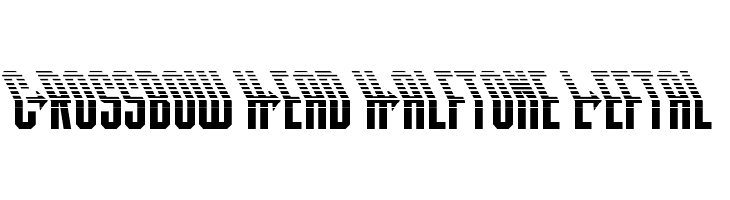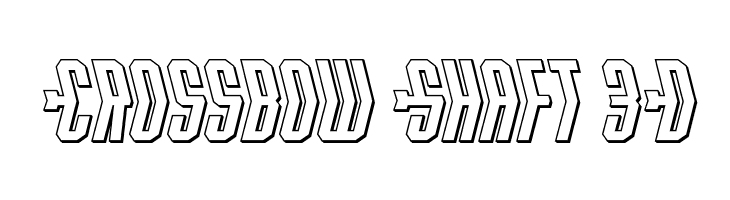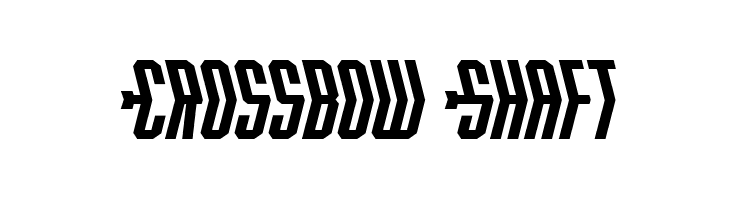
A bold, 3D geometric font with angular, dynamic characters.
A bold, 3D italic font with a futuristic and dynamic design.
A bold, 3D italic font with outlined characters and a modern, geometric style.
A bold, angular font with a futuristic and dynamic style.
A bold, 3D expanded font with a futuristic and dynamic style.
A bold, futuristic font with geometric lines and dynamic movement.
A bold, expanded, and italic font with a modern, dynamic style.
A bold, angular font with a futuristic and geometric design.
A bold, dynamic font with a gradient effect and futuristic style.
A bold, dynamic font with a halftone effect and a futuristic aesthetic.